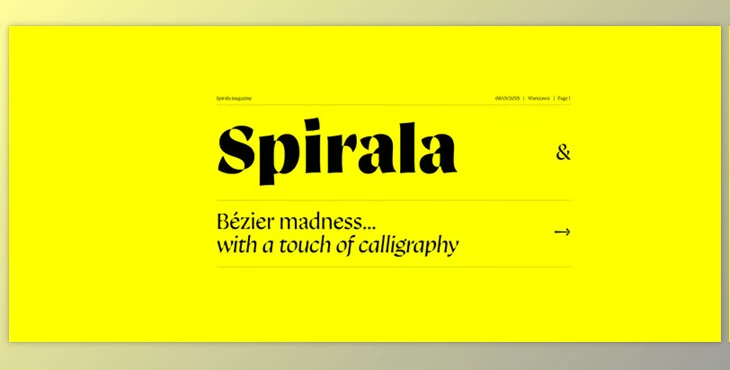
The Spirala Display Font Family combines the graceful swirl of classic calligraphy with the sharp edge of today's digital lettering. Its angled nibs give each character a hand-crafted look while clever curve work keeps the design crisp on-screen and in print. That blend of old charm and new tech makes Spirala a tempting option for anyone after a typeface that's experimental yet easy to read. Though it feels daring, the family plays well across everything from logos to headlines, wherever a lively, broken rhythm is welcome.
Spirala arrives in four clean weights plus a matching italic, so designers have a whole range for pairing or stacking. The Fonts cut-out style shines in layouts that call for panels or grids, touching projects with a bold, up-to-date edge. Guided by Mateusz Machalski and polished by Karol Mularczyk, Malgorzata Bartosik, and Borys Kosmynka, Spirala proves that type can be both playful and precise.